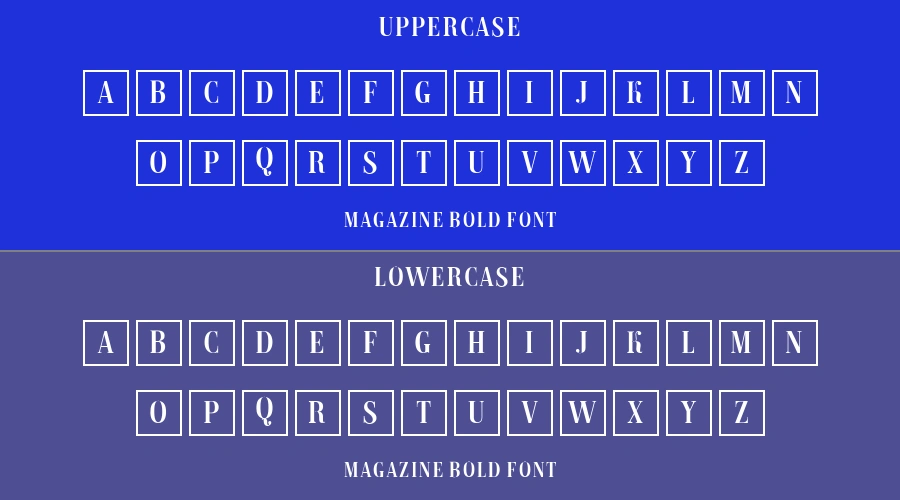
About Magazine Bold Font
When typographic excellence matters most, Magazine Bold Font delivers through its thoughtful blend of organic curves and originality. Specially crafted for motion graphics, it offers the versatility and brand alignment required for sophisticated design work. Every detail serves a purpose.
The character set showcases thoughtful details like rounded corners alongside functional currency signs. This proves especially valuable in specification sheets, where rendering directly influences results. Particular attention was paid to cap height ratio and contemporary relevance during development.